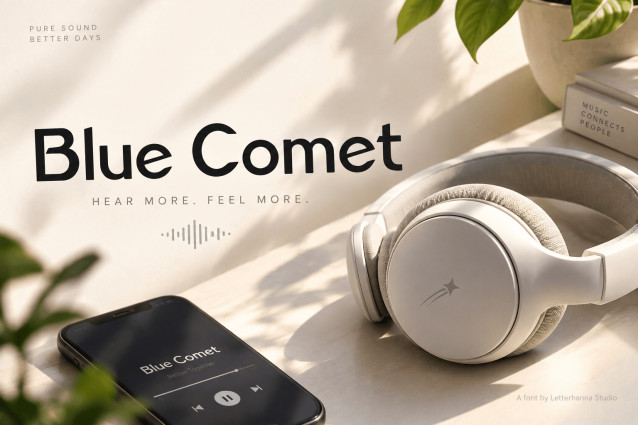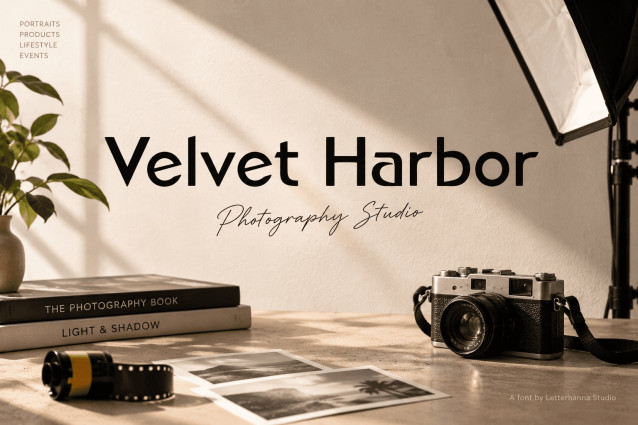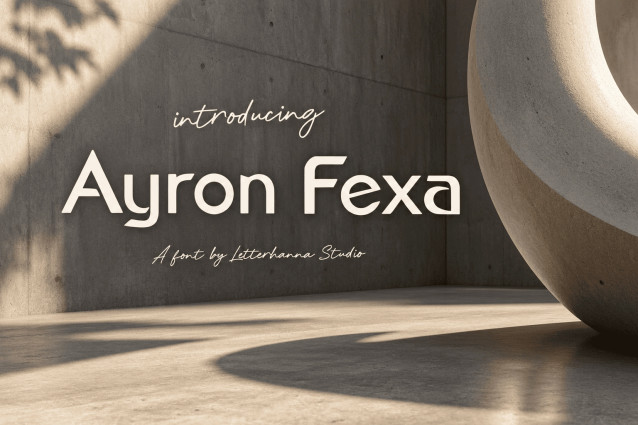
Ayron Fexa Font
Ayron Fexa’s letterforms are stripped down to clean geometric shapes, yet never feel cold. Rounded terminals and consistent stroke weight give it a friendly, approachable edge inside a bold structure.